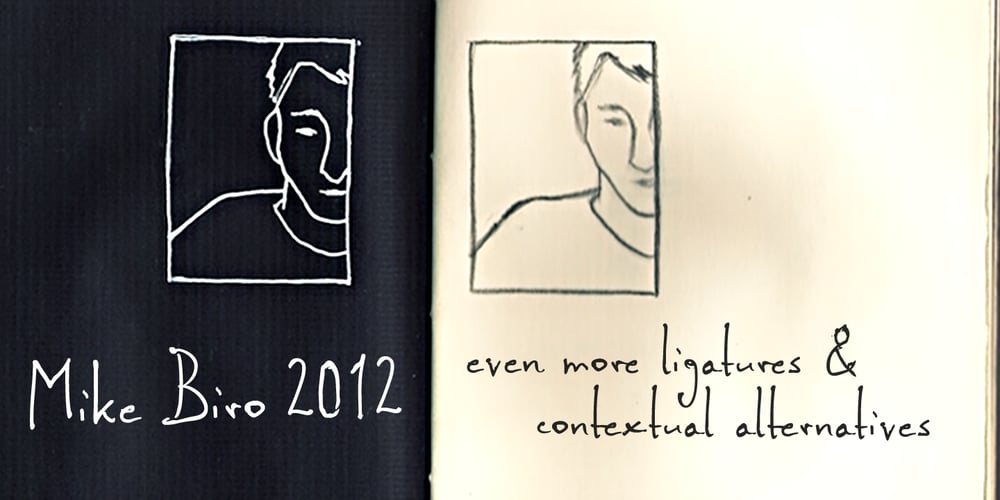
Mike Biro Script
Mike Biro Script Font Family was designed by Michael Nöbauer, Johannes Krenner and published by Johannes Krenner. Mike Biro Script contains 1 styles and family package options. My uncle has a real fine handwriting. Especially the long ascender and descenders are very characteristic. It is dynamic and a good legibility. Try the font in a dark blue color (C90, M15, Y0, K60) and 22pt.